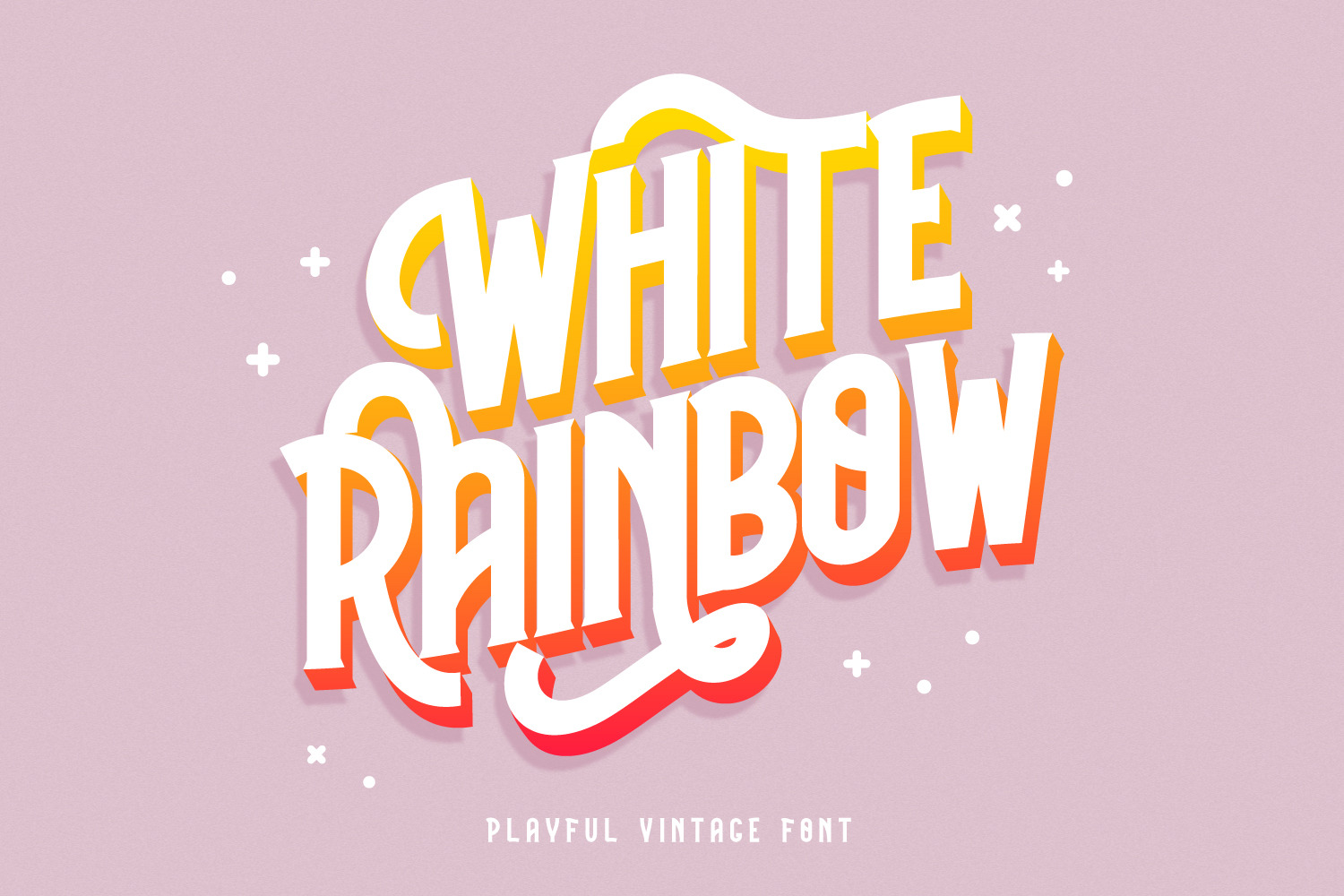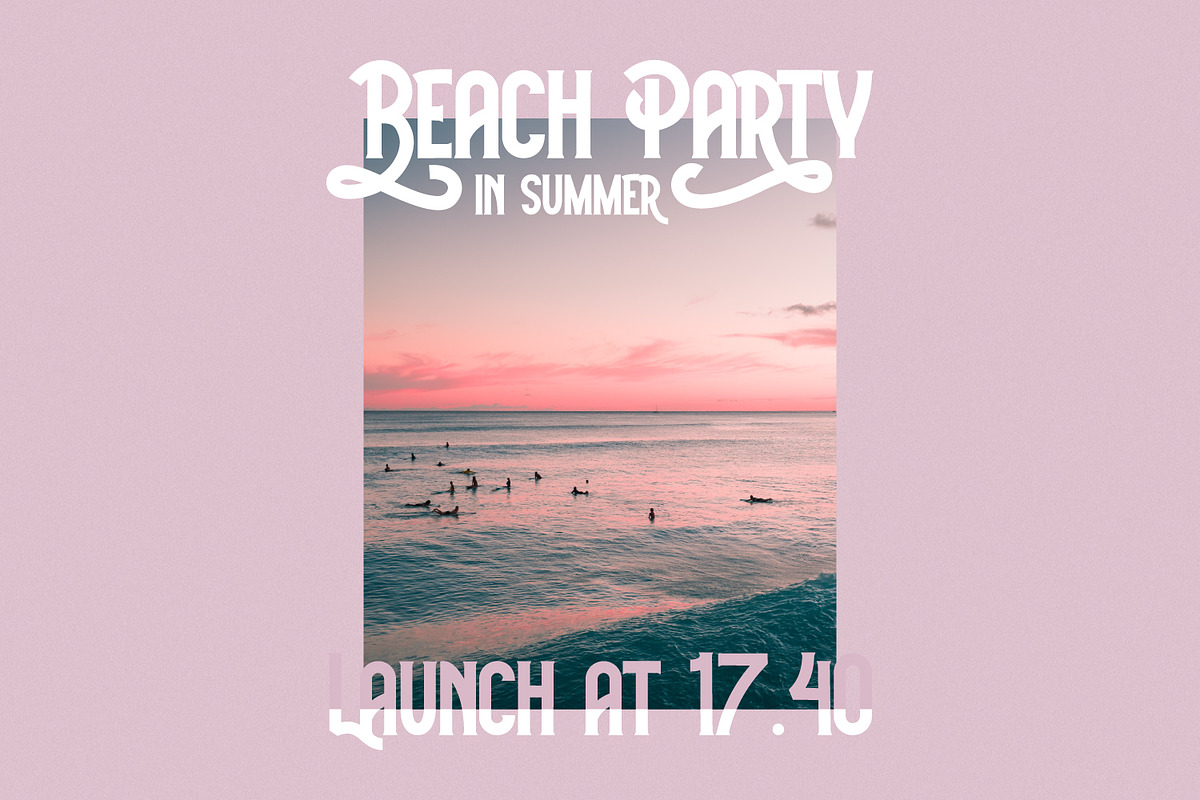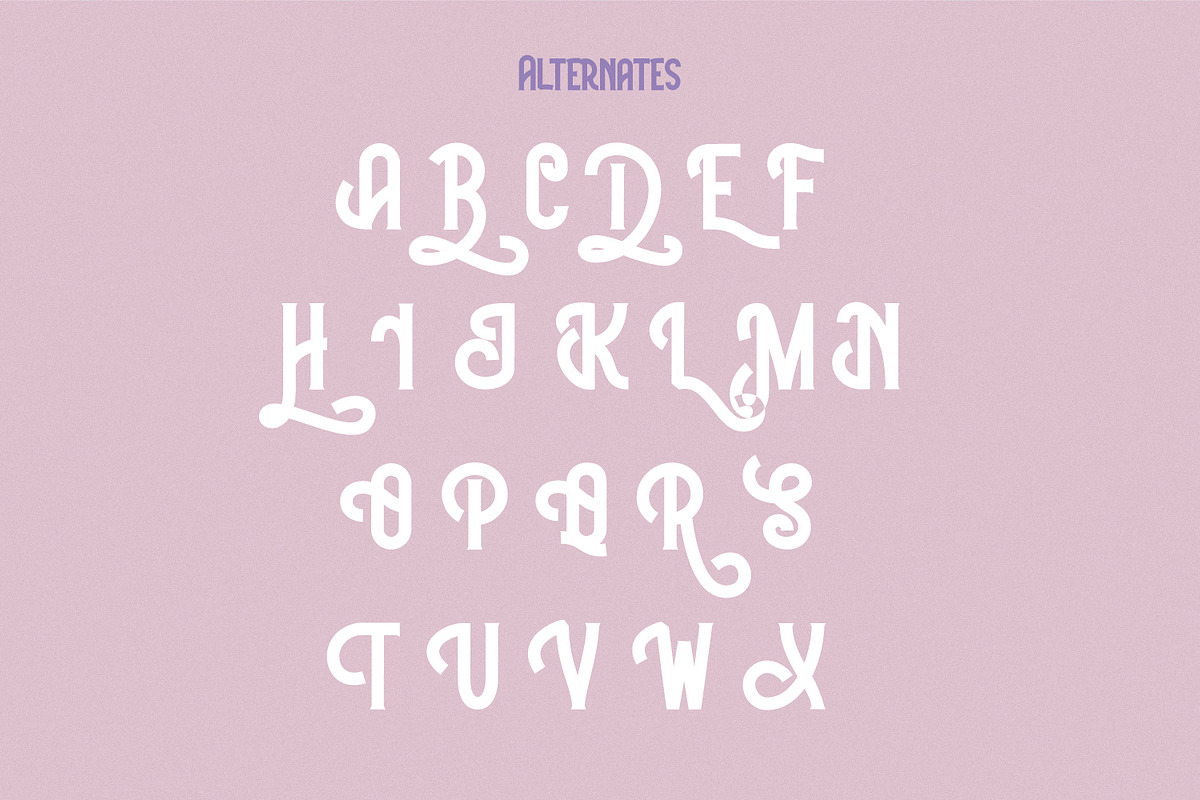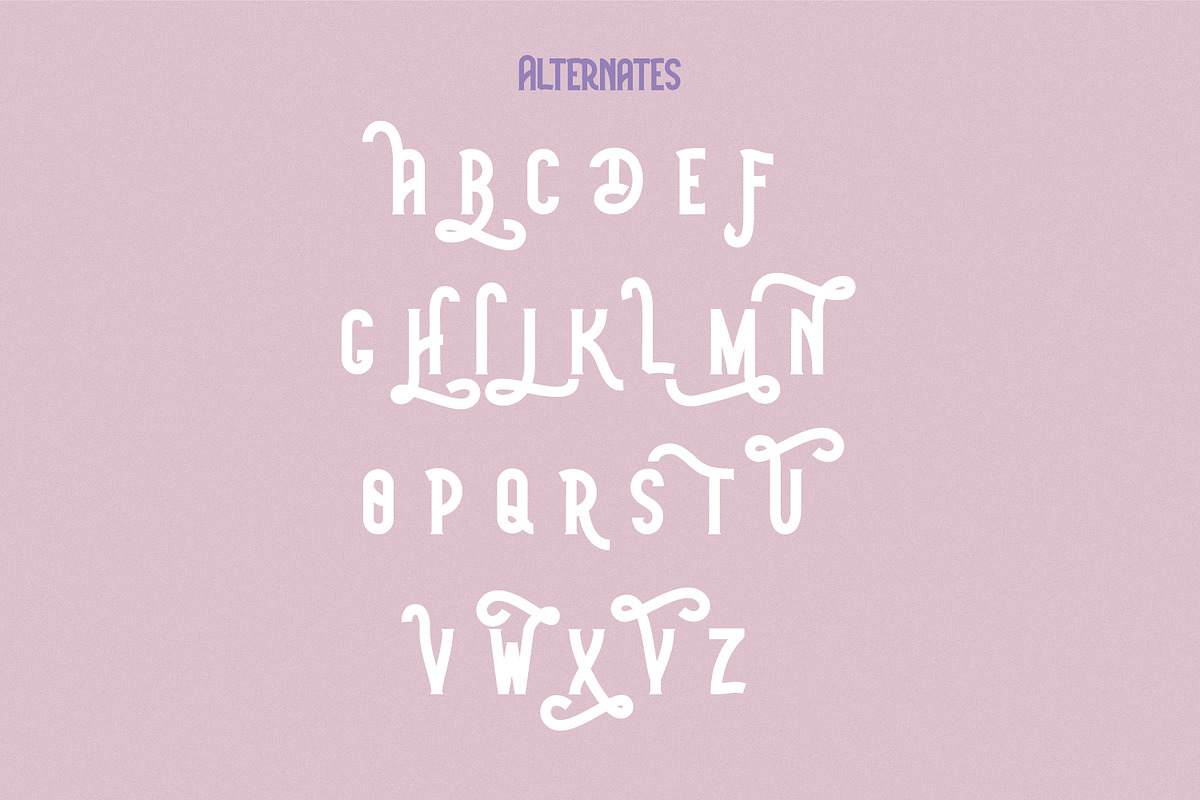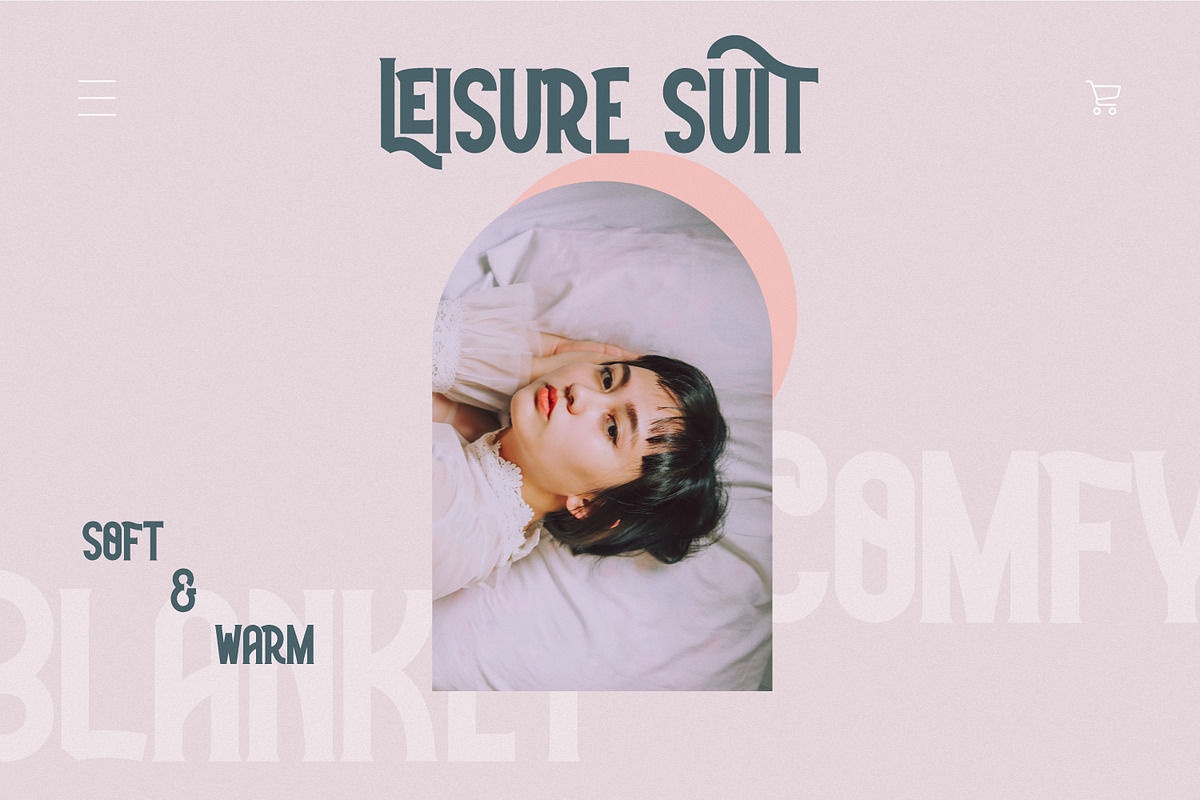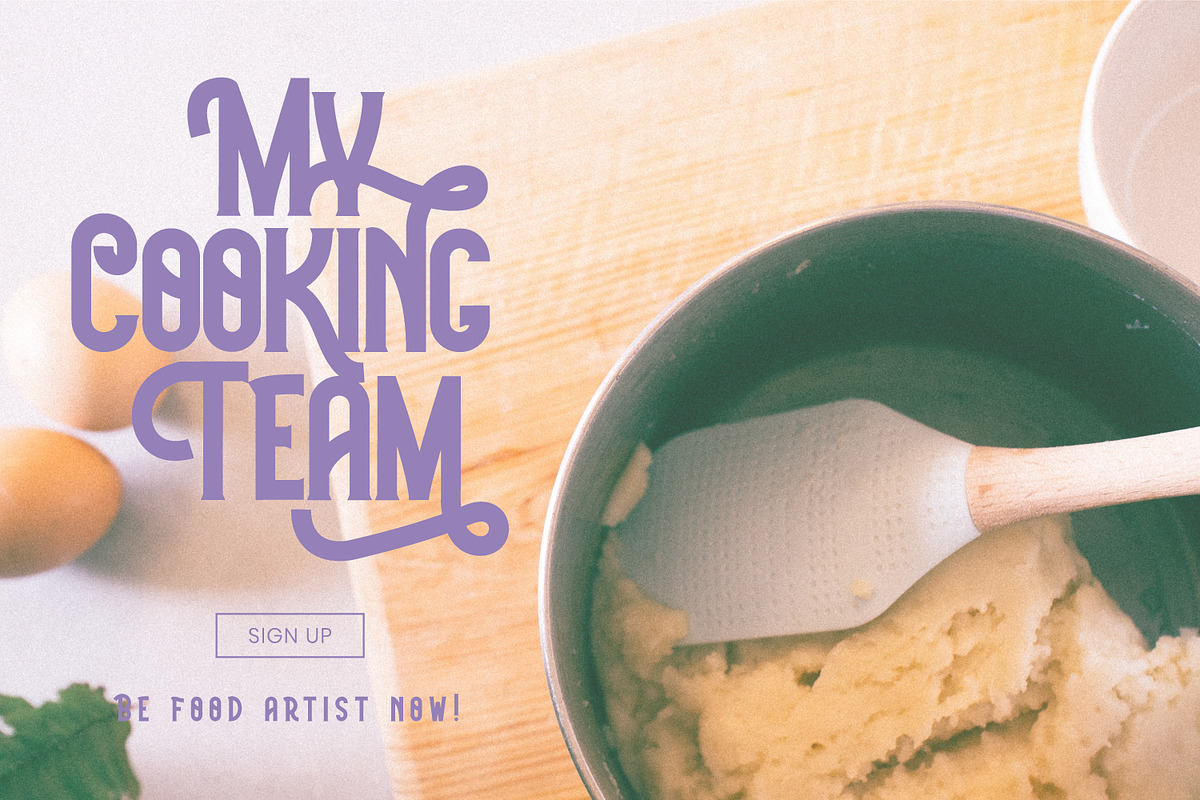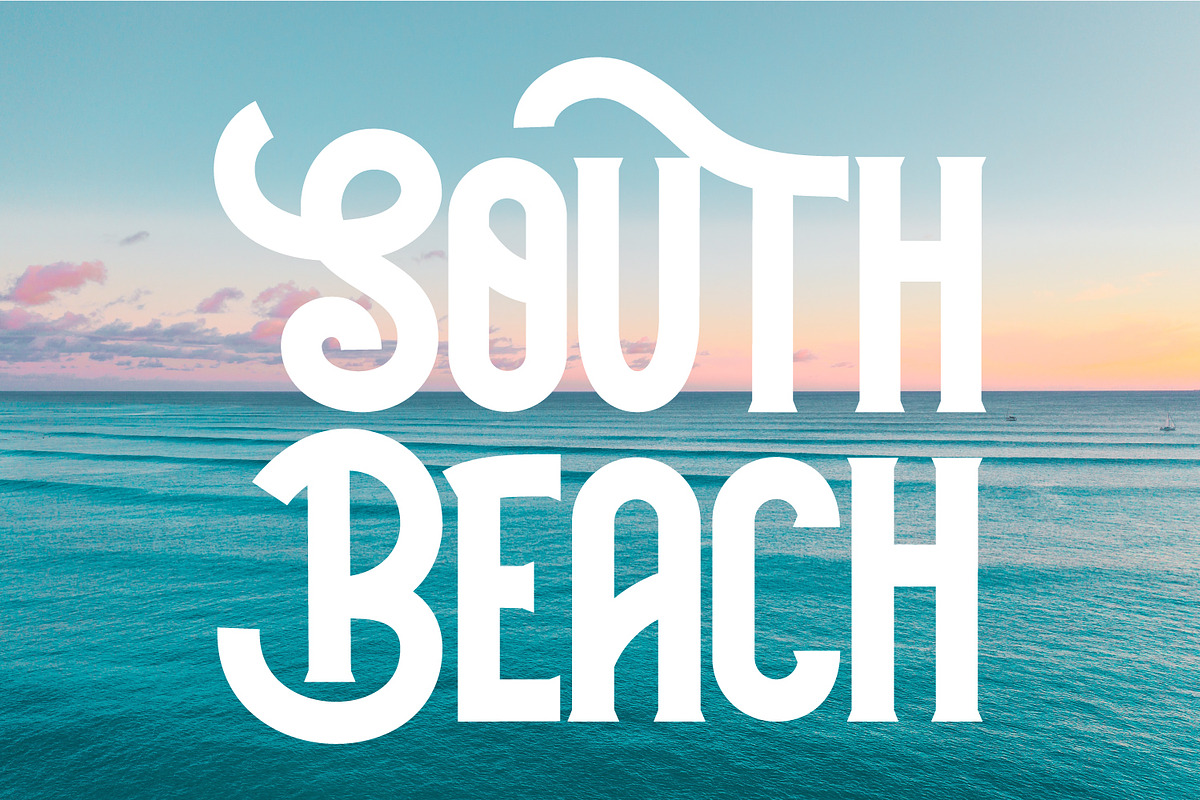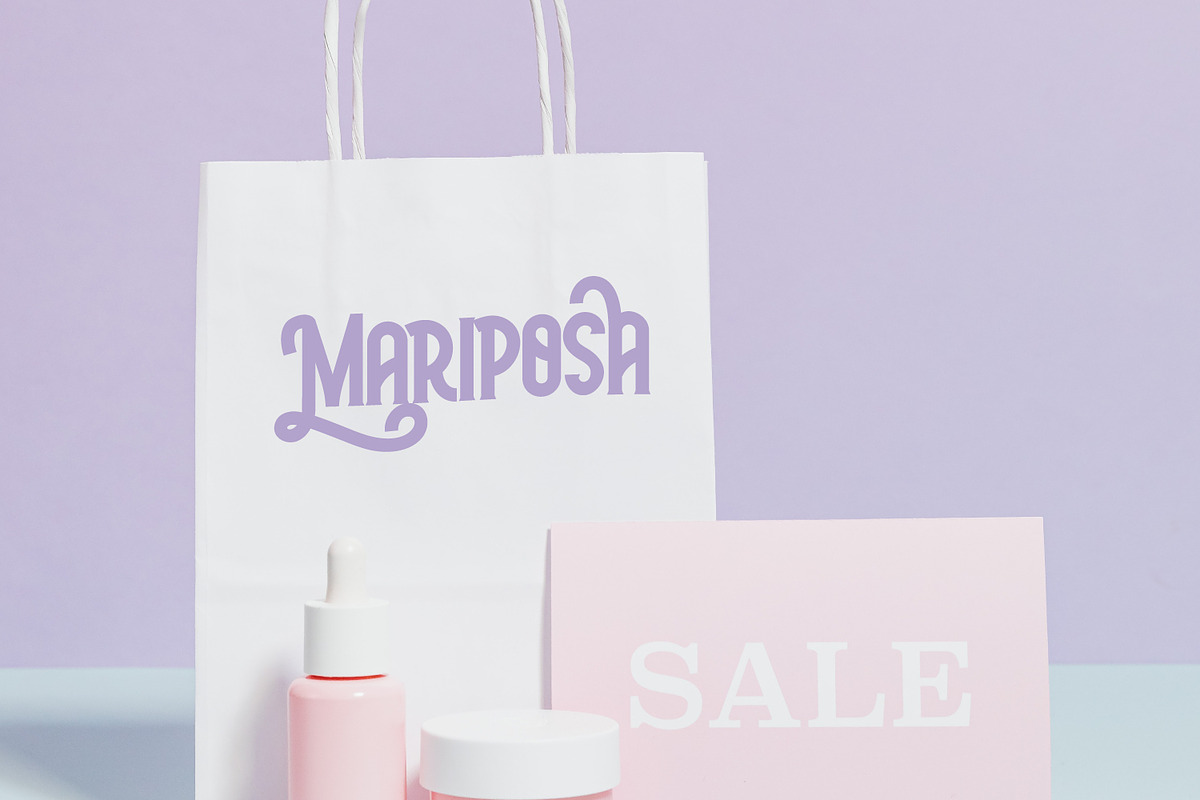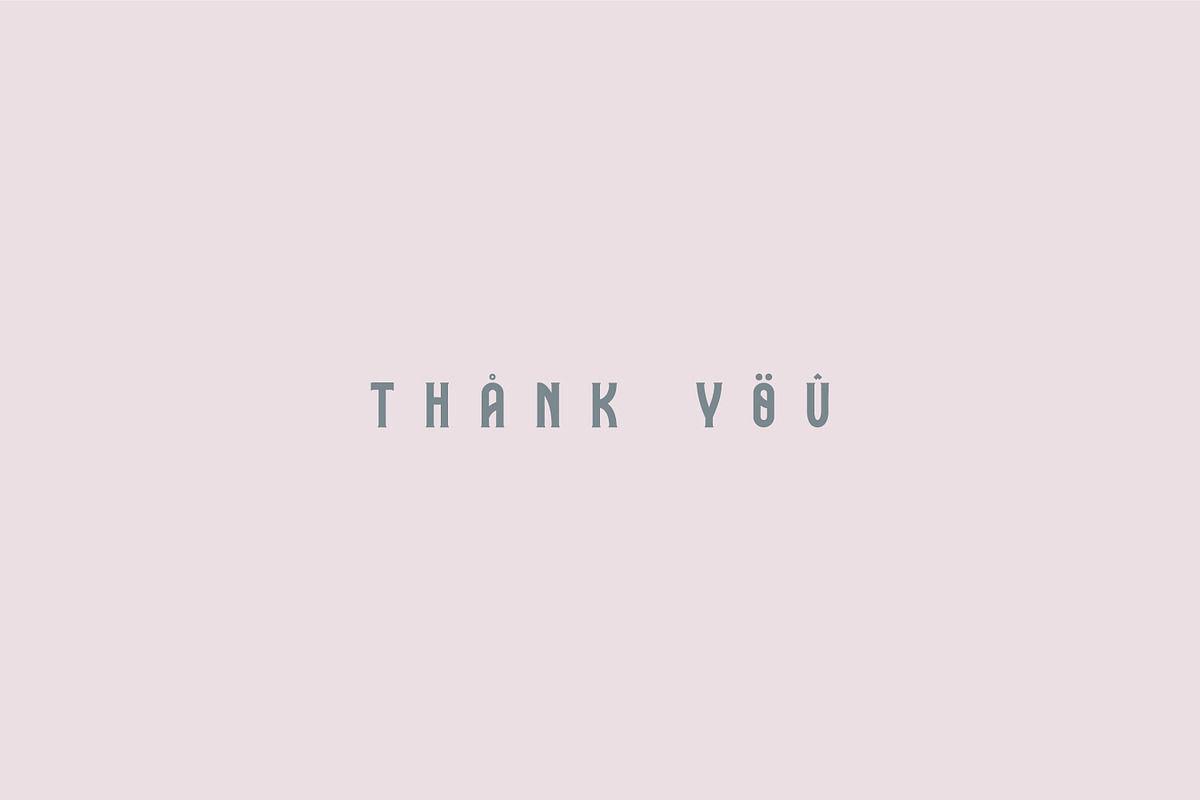
Please welcome, White Rainbow. Fun and casual vintage retro decorative font. The definition of real versatility and flexibility. You can rock on both vibes, retro and modern by using a single font. Yes, just like your favourite day-to-day sneakers.
Wide variety of Stylistic Alternates and Ligatures in every single letter to elevate your design game to the next level. Cut the process more because it should be easy.
Perfectly fit for the visual project such as logo, branding, poster, food and beverages, social media content, website, UI/UX design, youtube thumbnail, CV, mood board, wedding, you name it.
- ligature and alternates feature